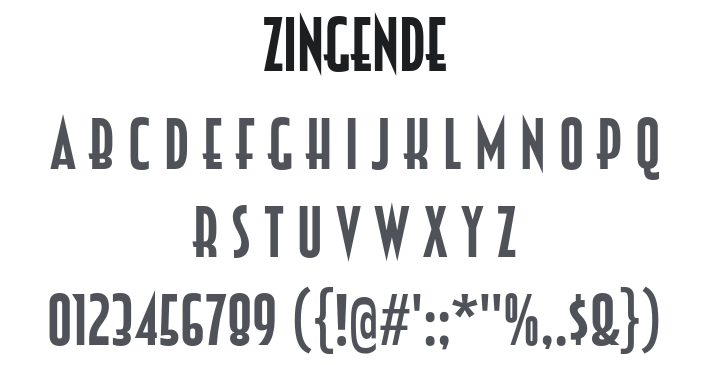
Zingende Font Family
About Zingende
Step into an era when elegance was built into every line and curve. Zingende captures the glamour of Art Deco at its peak, translating the geometry and vertical drama of 1920s and ’30s lettering into a modern, versatile display family. From its razor-sharp apexes to its graceful waistlines, Zingende’s forms rise like the skyline of a Deco metropolis—sleek, confident, and unmistakably refined.